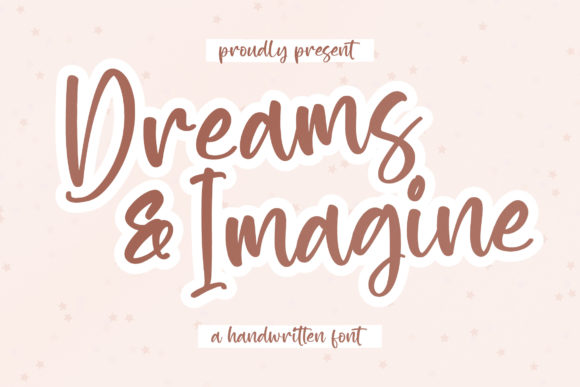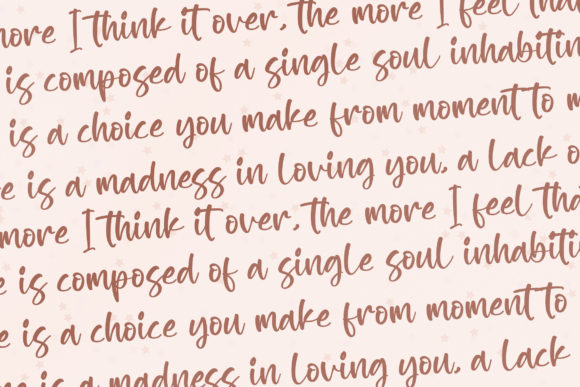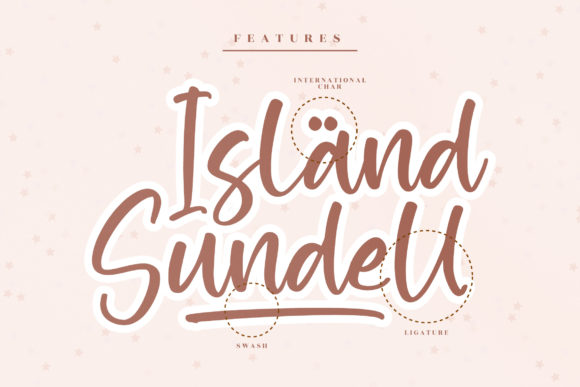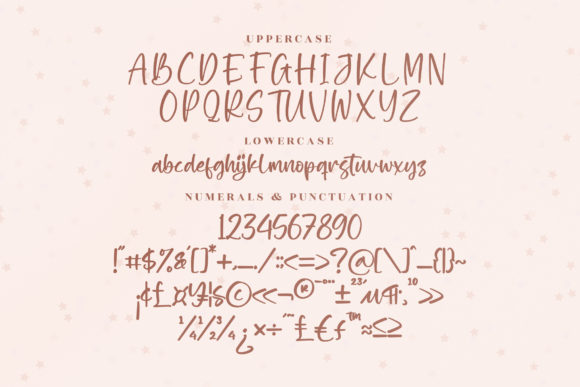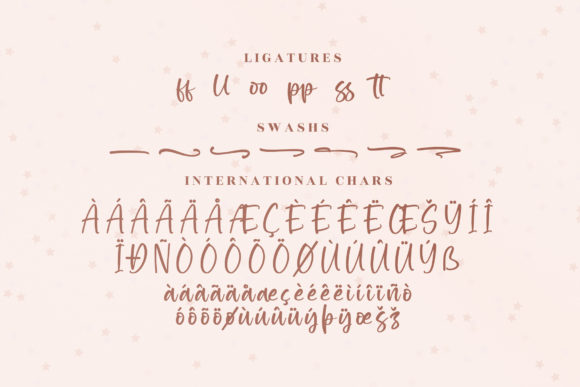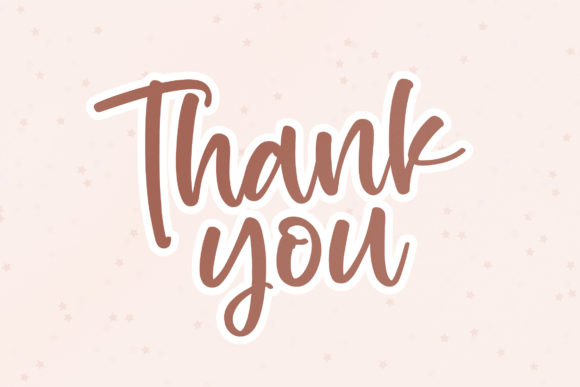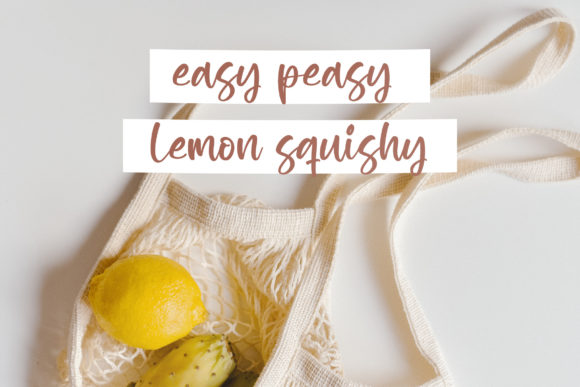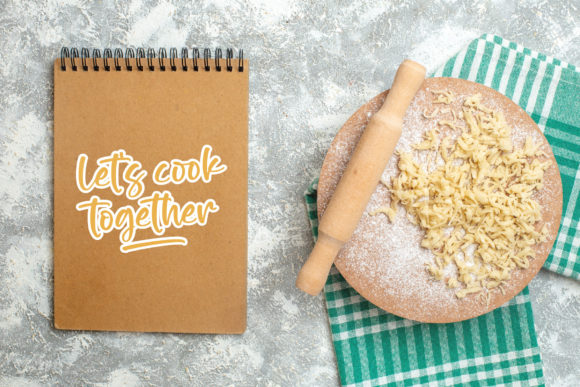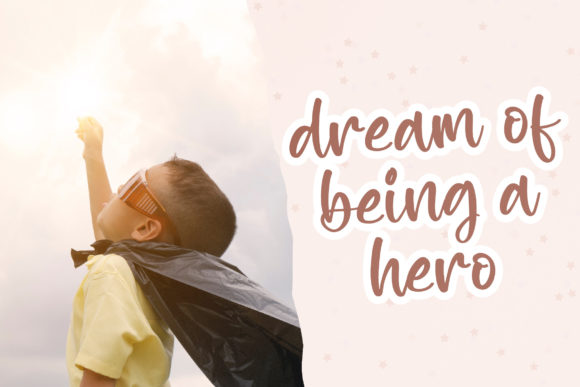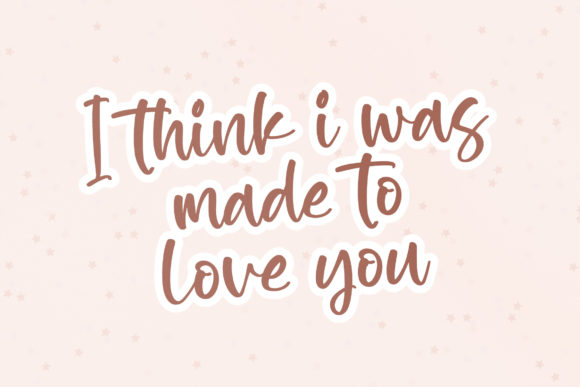
Dreams Imagine Font
About Dreams Imagine Font
Dreams Imagine is a delightful and quirky handwritten font that exudes sweetness and fun. Its playful charm makes it a perfect choice for a variety of creative projects, from product packaging and branding to magazine covers, social media graphics, wedding materials, and any design where you want to express words above the background with a touch of whimsy.
The font’s sweet and fun characteristics shine through its playful design, adding a lighthearted and joyful element to your visual communications. Dreams Imagine invites you to infuse your projects with a sense of creativity and individuality, making it an excellent option for designs that aim to stand out with a unique and quirky personality.
Whether you’re creating a whimsical brand identity or adding a playful touch to your social media posts, Dreams Imagine brings a distinctive handwritten flair. Its quirky nature allows it to convey a sense of personality and approachability, making it suitable for a wide range of applications where a touch of charm is desired.
The versatility of Dreams Imagine ensures its adaptability to different design contexts. Its handwritten style adds an organic and authentic feel, making it a great choice for expressing a range of emotions and moods in your visual projects.
In summary, Dreams Imagine is more than just a font; it’s a sweet and quirky handwritten typeface that injects fun and creativity into your designs. Whether you’re working on product packaging, branding, social media visuals, or other creative projects, let Dreams Imagine be the playful and charming element that elevates your visual storytelling.